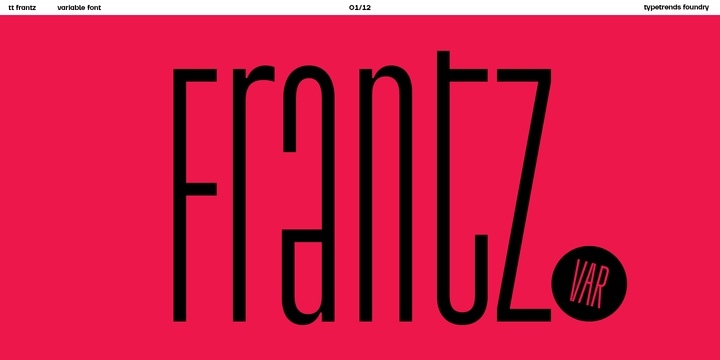
TT Frantz Font
TT Frantz Font is perfect for corporate branding, annual reports, professional presentations, financial documents, law firm communications, consulting materials, business proposals, executive correspondence, institutional signage, and premium editorial publications.
What makes TT Frantz Font so exciting is its masterful balance between contemporary sophistication and timeless professionalism that instantly communicates credibility and expertise across all business applications. This typeface represents the pinnacle of corporate typography design, featuring meticulously refined letterforms that convey authority while maintaining exceptional readability in both digital and print environments. The font's distinguished character stems from its ability to project confidence and reliability without appearing cold or impersonal, making it ideal for organizations that need to establish trust and professional excellence.
TT Frantz Font comes in an extensive family including Thin, Light, Regular, Medium, Semibold, Bold, and Black weights, each available in Roman and Italic styles, providing comprehensive typographic solutions for complex corporate communication systems and brand hierarchies.
Whether you're developing corporate identity systems, creating professional documentation, or designing executive-level communications, TT Frantz Font Free Download delivers unmatched versatility and authoritative presence. This premium typeface performs exceptionally across all media formats, from detailed financial reports to large-scale environmental graphics, maintaining its professional character while ensuring optimal legibility. The font's carefully engineered spacing and proportions create clean, organized layouts that enhance document readability and professional presentation quality.
Corporate communications specialists and design agencies consistently choose TT Frantz Font for clients requiring sophisticated brand positioning and professional credibility. Its authoritative styling makes it particularly effective for financial services, legal practices, consulting firms, and Fortune 500 companies seeking to communicate stability, expertise, and trustworthiness. The font's comprehensive weight range and versatile character set enable seamless integration across all corporate touchpoints while maintaining consistent brand voice and professional standards.